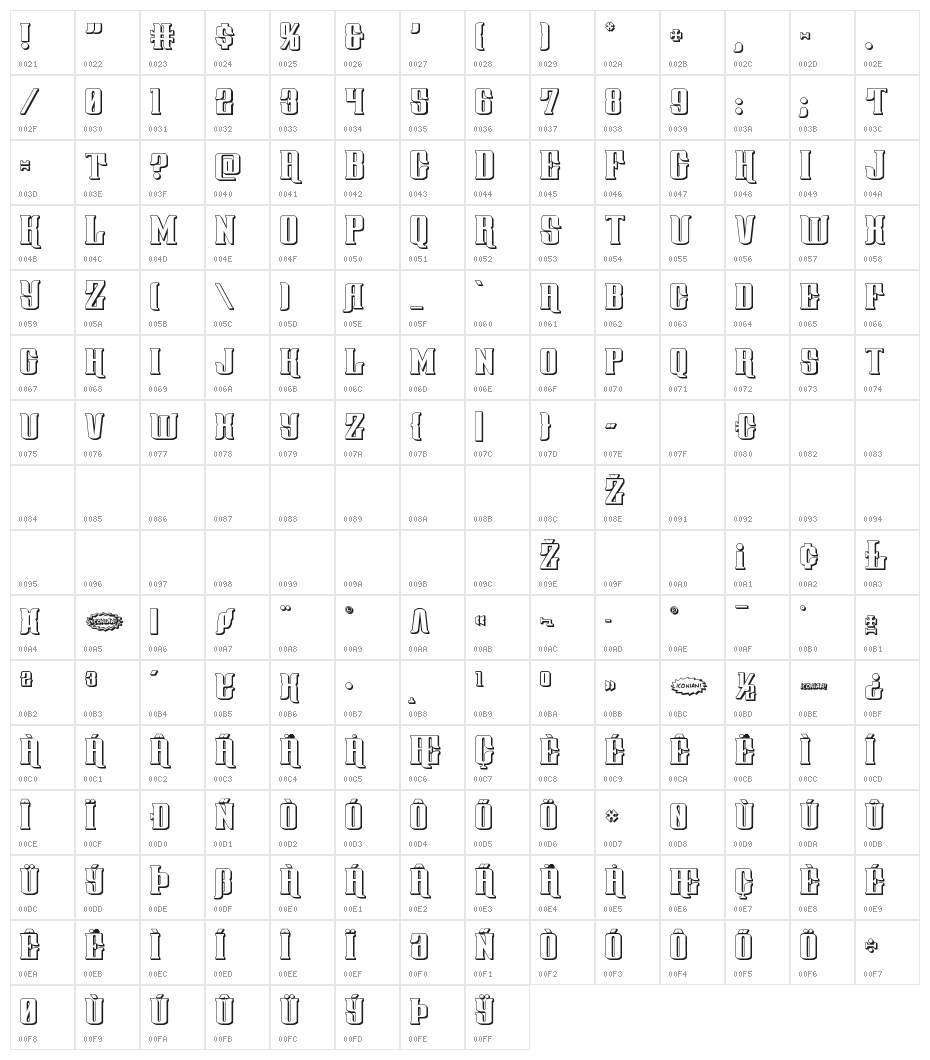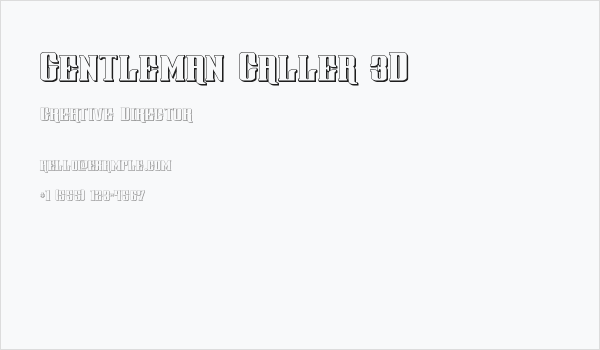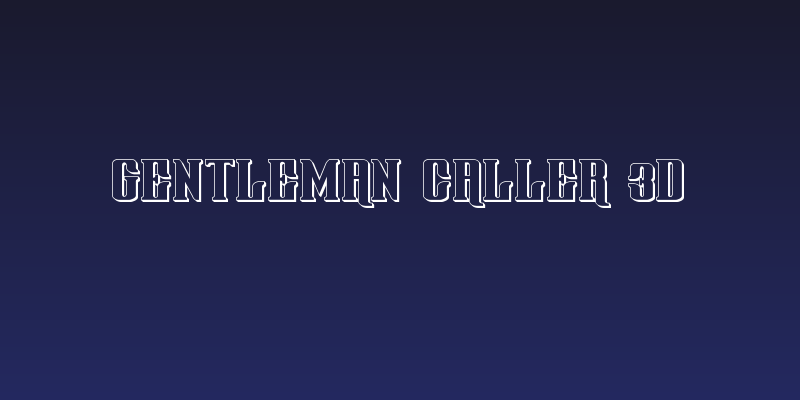
Gentleman Caller 3D Font
Gentleman Caller 3D Description
This font features a bold and striking 3D effect, with each character having a shadow that gives it depth and dimension. The letters are uppercase and have a strong, blocky appearance, making them highly visible and attention-grabbing. The design includes sharp edges and clean lines, contributing to a modern and dynamic look. The numbers and special characters maintain the same bold style, ensuring consistency across all elements. This font is ideal for making a statement, with its high contrast and impactful presence.
| Proposed Projects | Ideal for posters, headlines, logos, and any design needing a bold, impactful statement. |